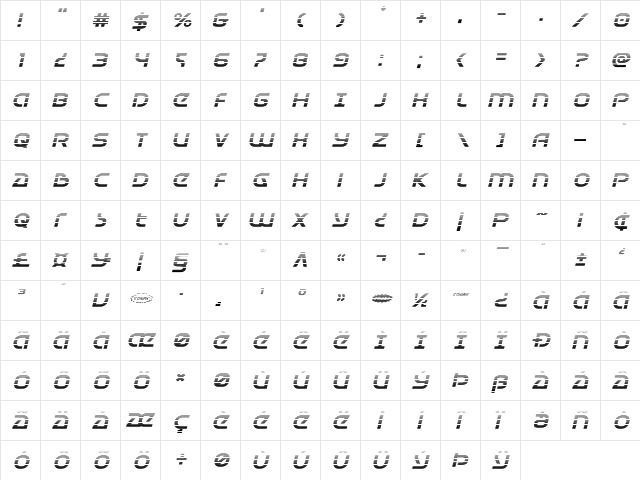
Universal Jack Gradient Italic Italic
Design Context for Universal Jack Gradient Italic Typeface
Universal Jack Gradient Italic takes a measured approach to typography — its balanced proportions and neutral character make it a reliable workhorse for both digital and print work. Its italic angle brings a sense of urgency and motion to the letterforms.
Pro Tip: Try Universal Jack Gradient Italic for annotation and caption copy alongside an upright companion — the contrast in angle creates a dynamic but ordered typographic system.